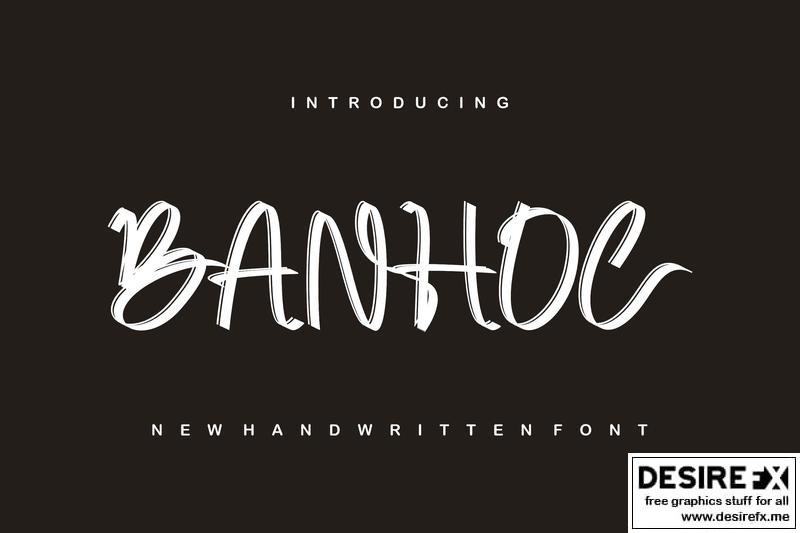
Banhoc QVXM8D2
Introducing our new product Banhoc Font Modern Font
Banhoc Font – Modern Font is a bold and authentic display font. The font is suitable for any branding project like logo, t-shirt printing, esport, and many more. outstanding in a wide range of contexts.